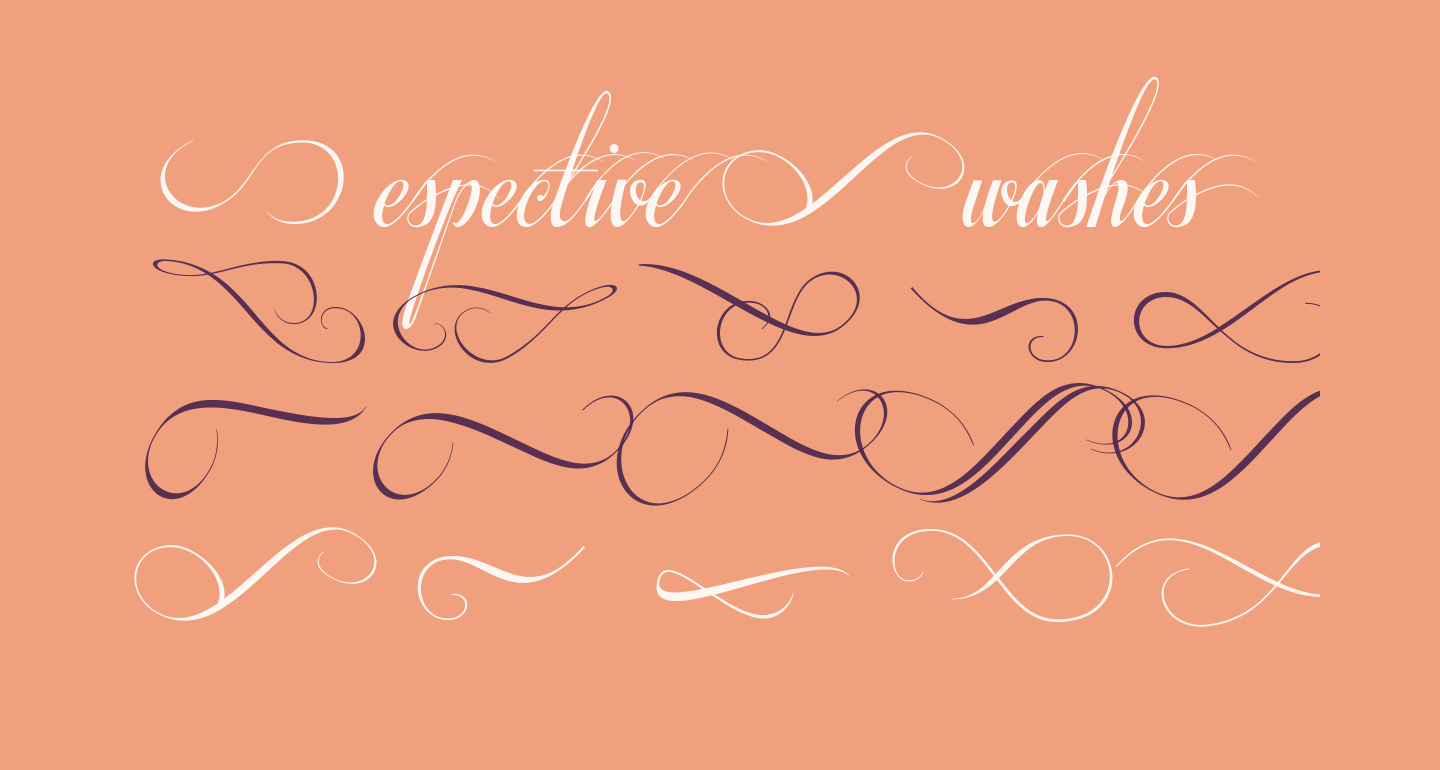
Every font is free to download! Indah* (outlined heart glyphs and swashes) hibiscus: Swashes font is a sans serif font which has a smoother look.
And another handwriting signature font with swashes. Shakila script is a handwritten font created at the end of march 2021. All of these gorgeous fonts are free for both personal and commercial use!
Beach* (thicker neutral script) magnolia: It is a free signature font with an awesome bonus which is 26 swashes. Angelina* (double looped tails) iris: